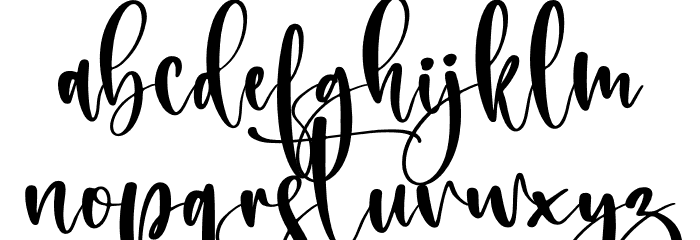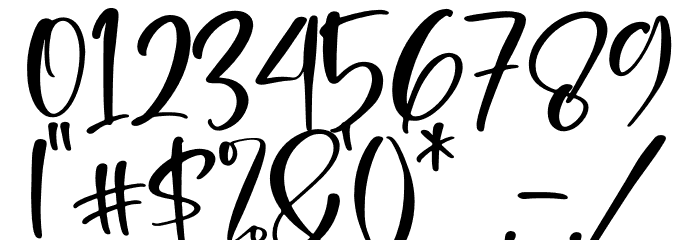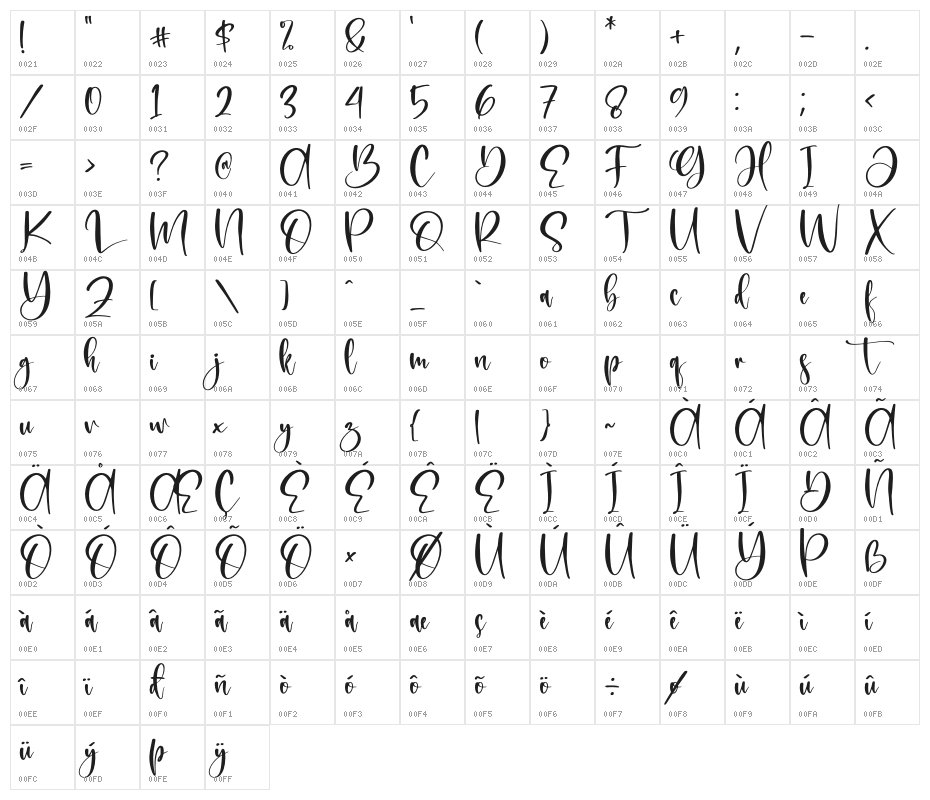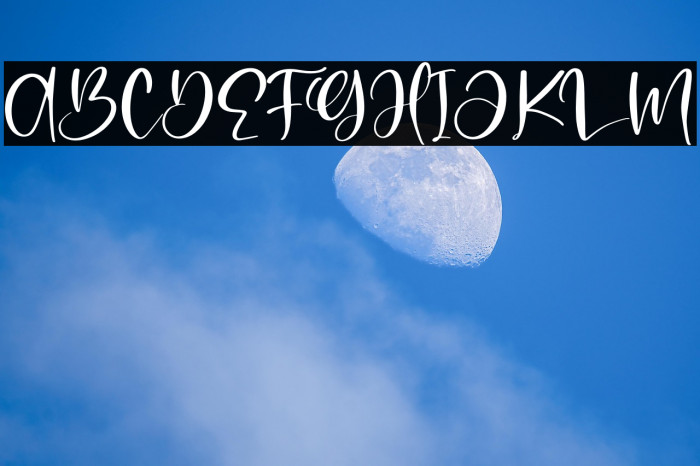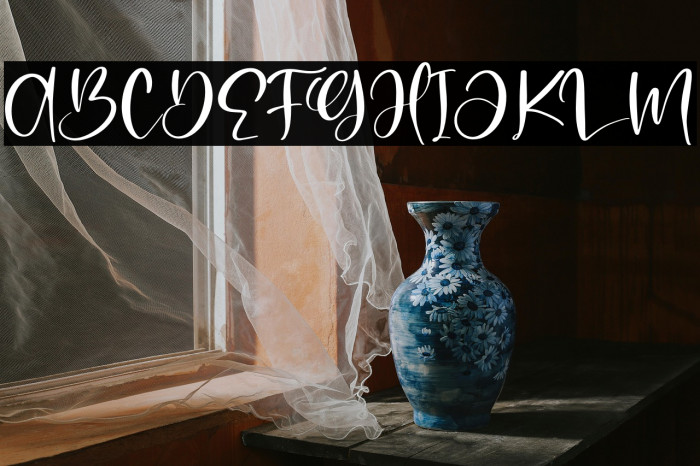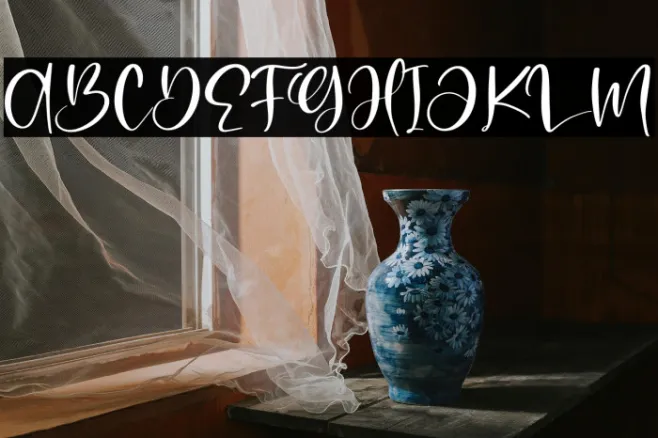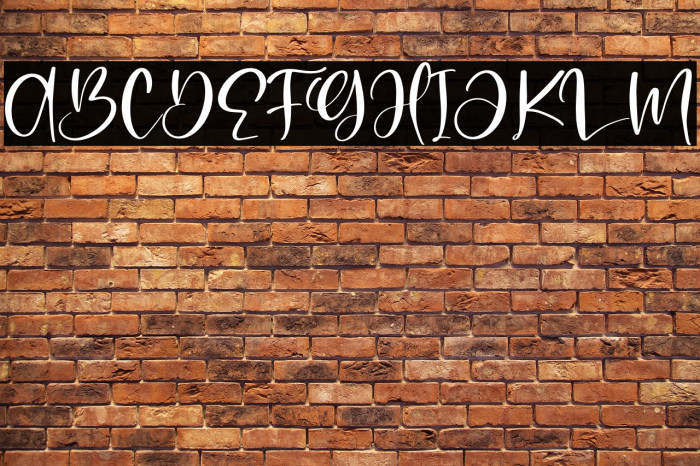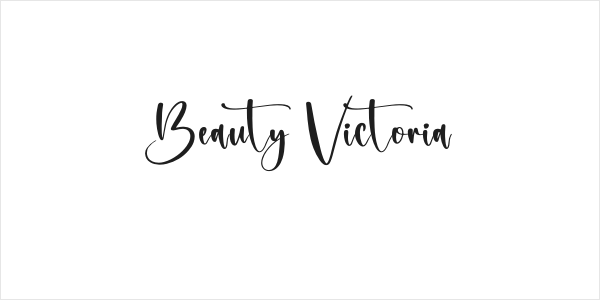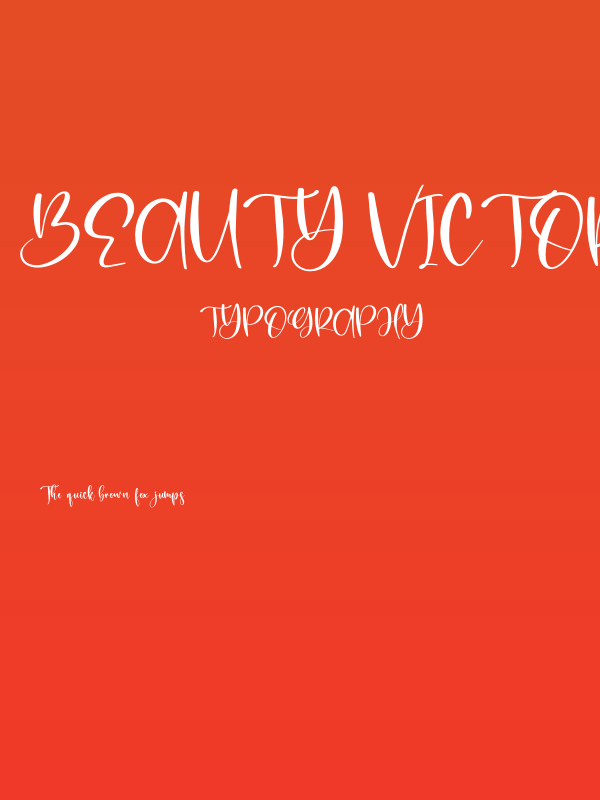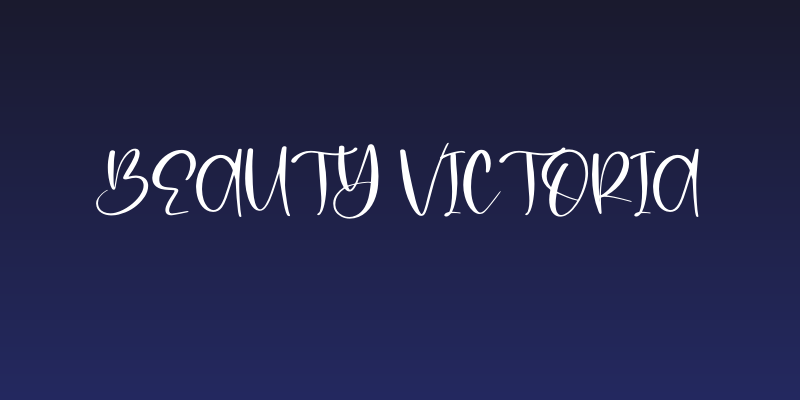
Beauty Victoria Font
This elegant script font features a flowing, cursive style with a modern twist. The uppercase letters are tall and graceful, with sweeping curves and loops that give them a sense of movement and fluidity. The lowercase letters maintain this fluidity, with some characters extending below the baseline, adding to the font's dynamic appearance. The numerals are bold and slightly slanted, complementing the overall style. Special characters are creatively designed, maintaining the font's artistic flair. This font's unique style makes it suitable for projects that require a touch of elegance and sophistication.
A modern, flowing script font with elegant curves and dynamic style.
- Font: Beauty Victoria
- Proposed Projects: Ideal for wedding invitations, branding, greeting cards, and elegant logos.
- Category: Script
- Use Case: Logos, Invitations, Branding